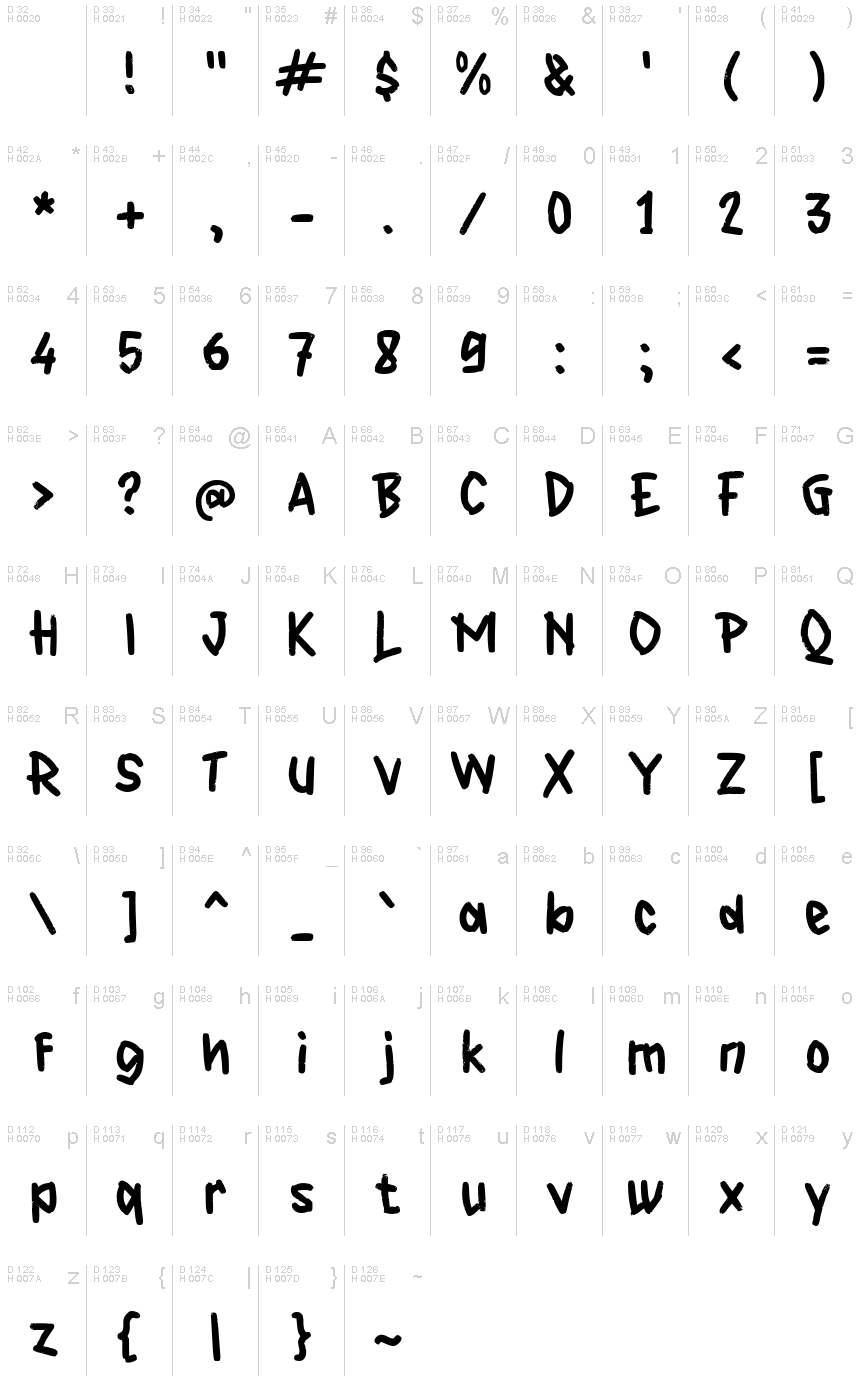
Grass Road
Grass Road, a captivating brush font crafted by designer wep, exudes a sense of organic fluidity and natural charm. Its expressive strokes and playful, imperfect lines evoke a handcrafted, artisanal aesthetic, conveying a feeling of authenticity and warmth. The font's unique character and calligraphic flair make it a standout choice for projects seeking to infuse a touch of rustic elegance and artistry.
This versatile font lends itself well to a variety of design applications, from eye-catching logos and branding materials to captivating headlines and decorative elements. Its adaptability allows it to seamlessly integrate into diverse design styles, whether it's highlighting a nature-inspired theme, evoking a cozy, handmade ambiance, or adding a touch of whimsy to modern, minimalist layouts.